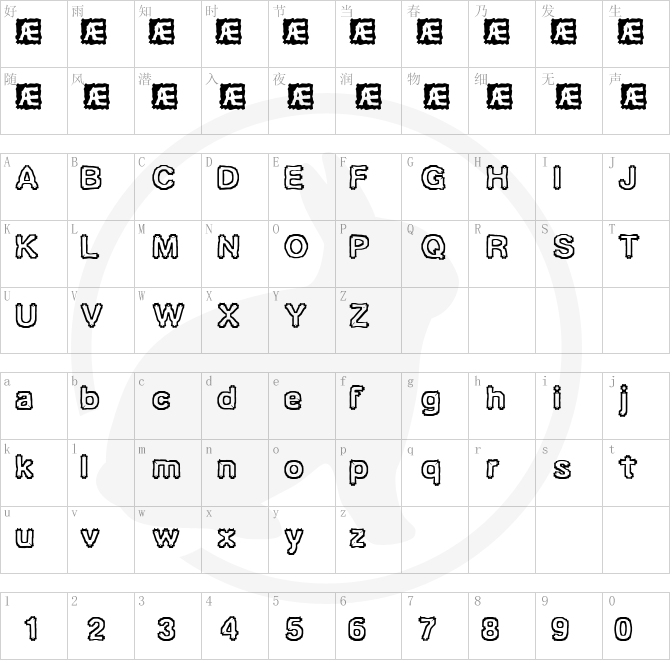
- Font Name:Ubiquity (BRK)
Ubiquity-BRK-.ttf is a very beautiful artistic font, Ubiquity-BRK-.ttf is widely used in the design and printing of various books and pictures,Ubiquity-BRK-.ttf has a strong visual impact,Ubiquity-BRK-.ttf is a commonly used font in newspapers, magazines and books, and is used in posters, e-commerce Poster design, store design, logo design, font design and other fields.Ubiquity-BRK-.